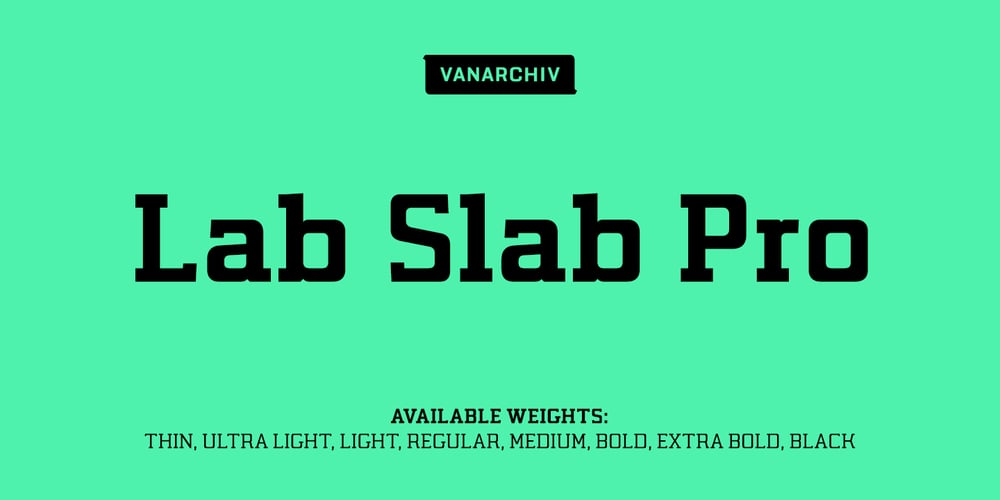
Lab Slab Pro Font Family was designed by Ricardo Santos, Luis Alonso and published by Vanarchiv. Lab Slab Pro contains 16 styles and family package options. Lab Slab Pro is a geometric slab typeface with a technological and minimalist look and is suitable for use in large sizes. It has eight versatile weights, (from Thin to Black) including true italics for each one, and a wide range of stylish alternate characters to improve its use in different graphic contexts. The name of this typeface was inspired by an experiment, mixing a structure with calligraphic influences and completely geometrical and structured drawings. Lab Slab Pro has a wide range of OpenType® features such as: small caps, old style/titling and small caps figures, fractions, superior and inferior scripts, scientific components and ligatures. Lab Slab Pro is Lab’s best and most powerful mutation designed by Tiponautas.